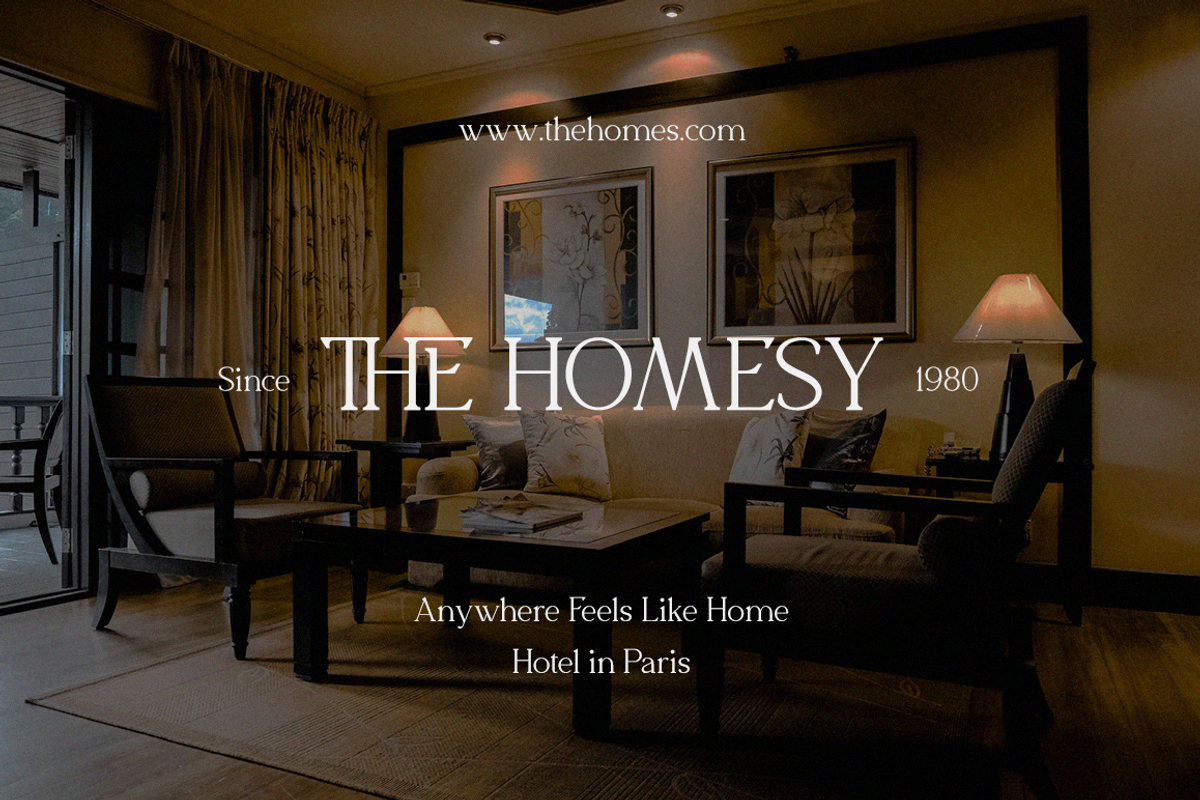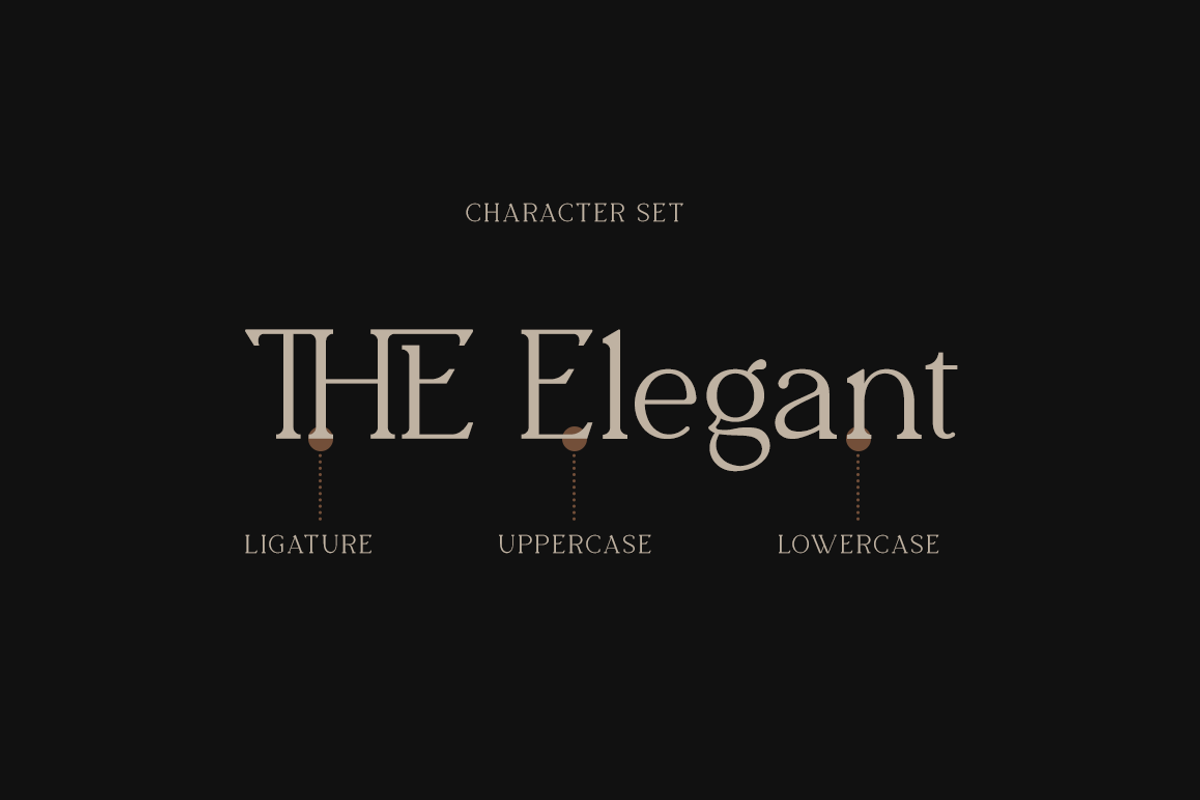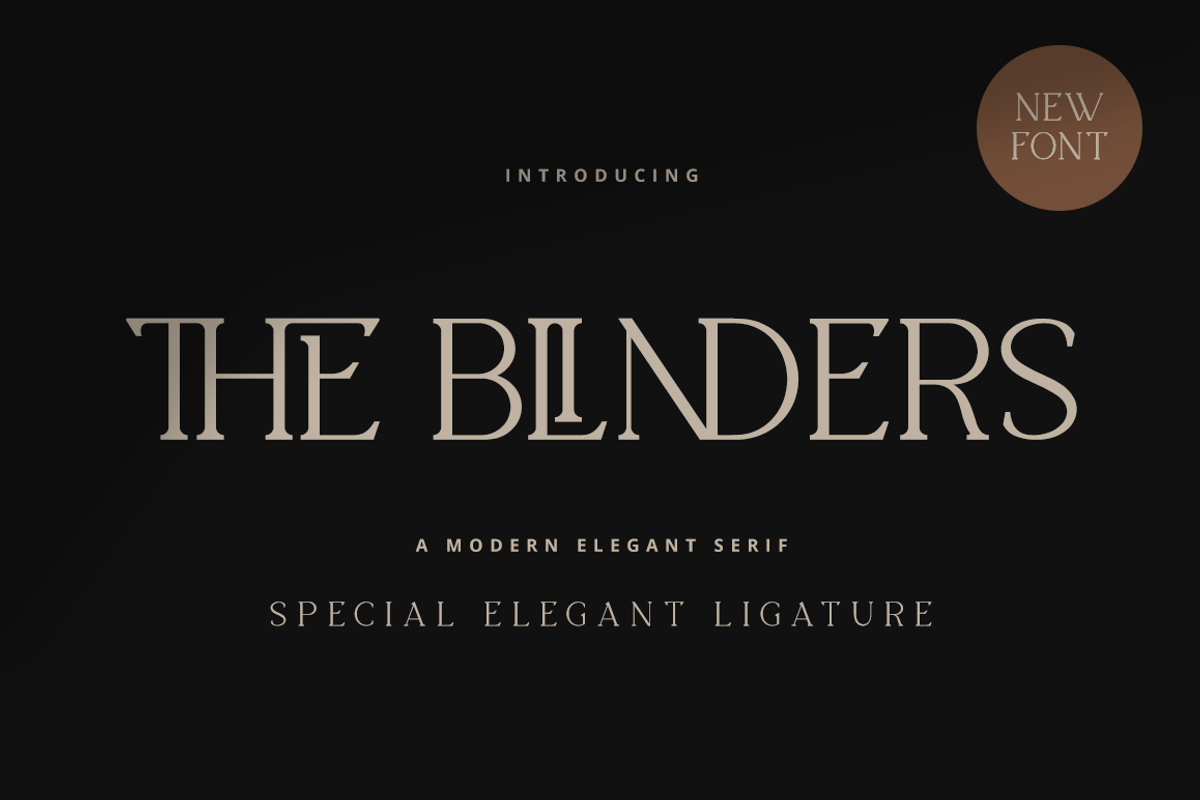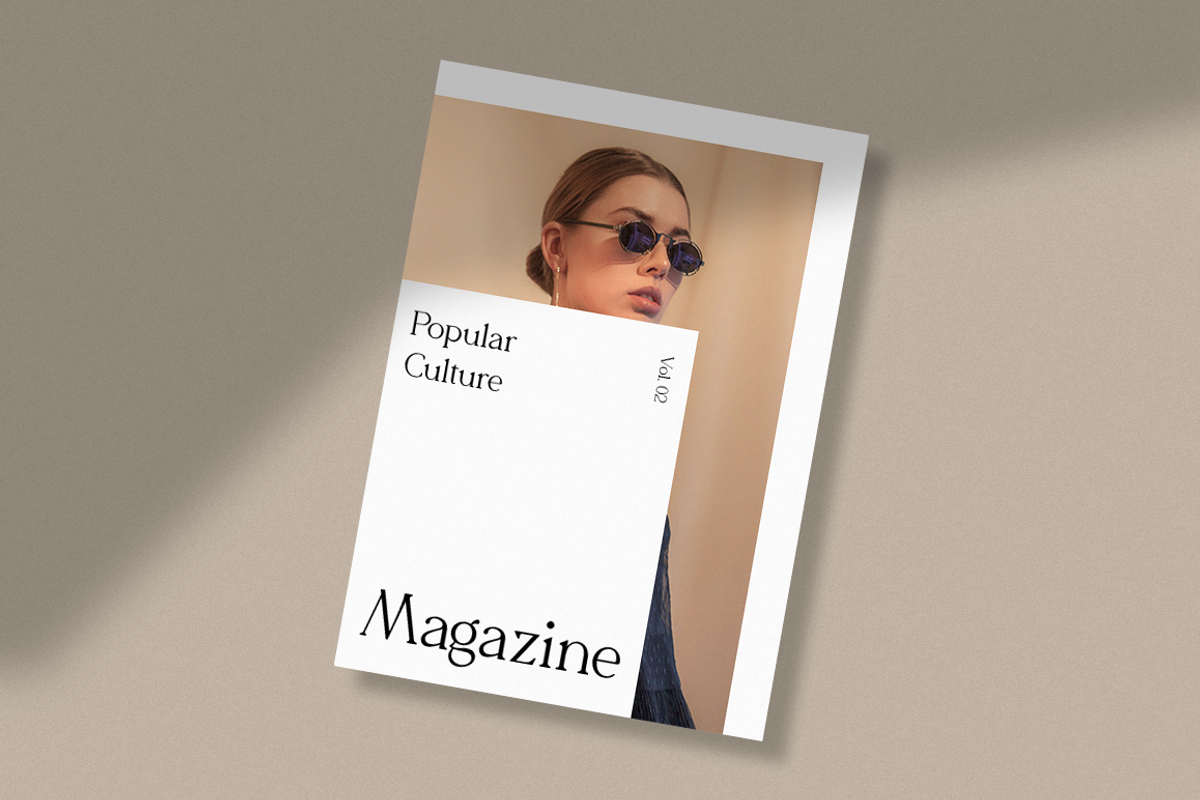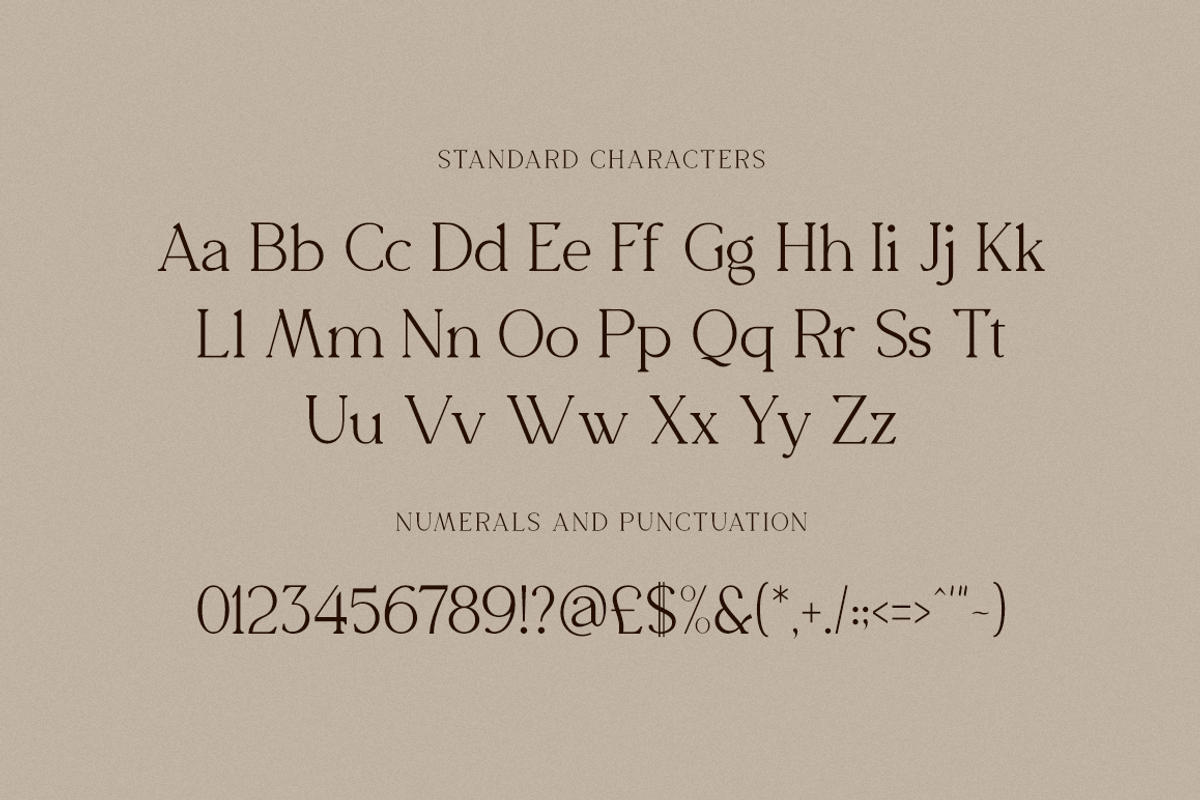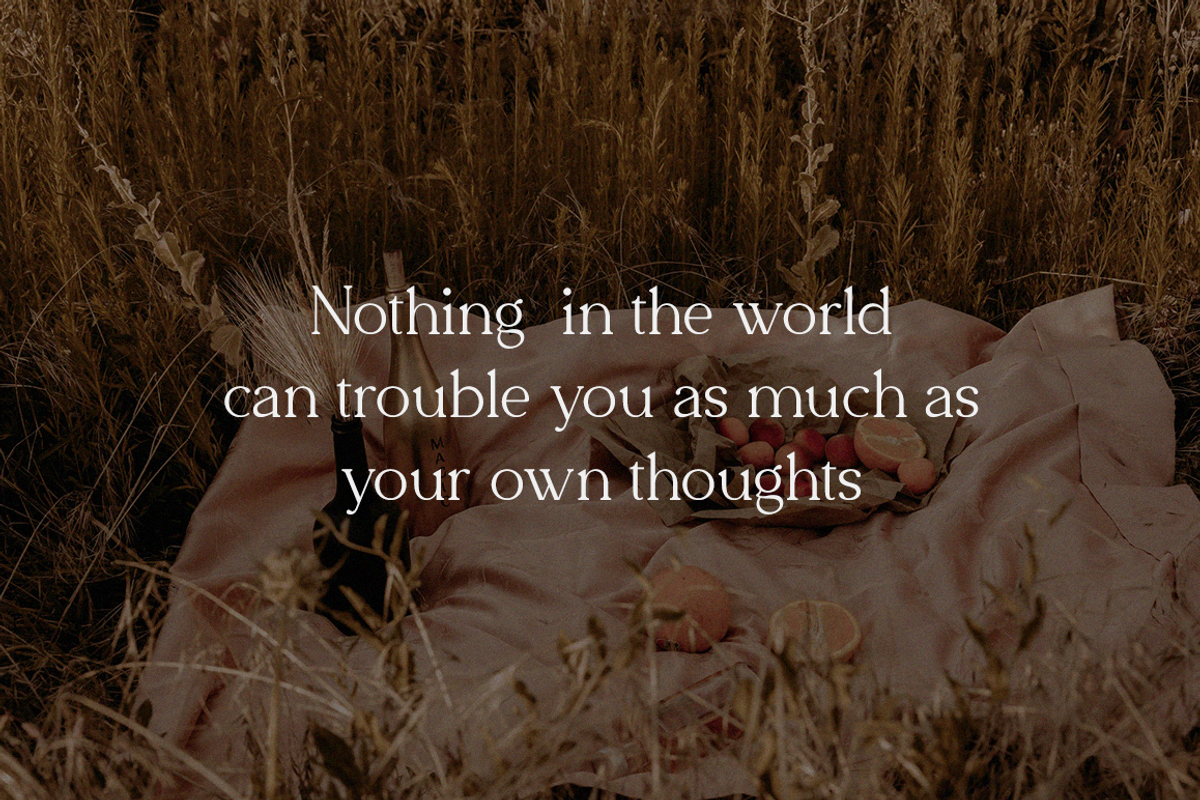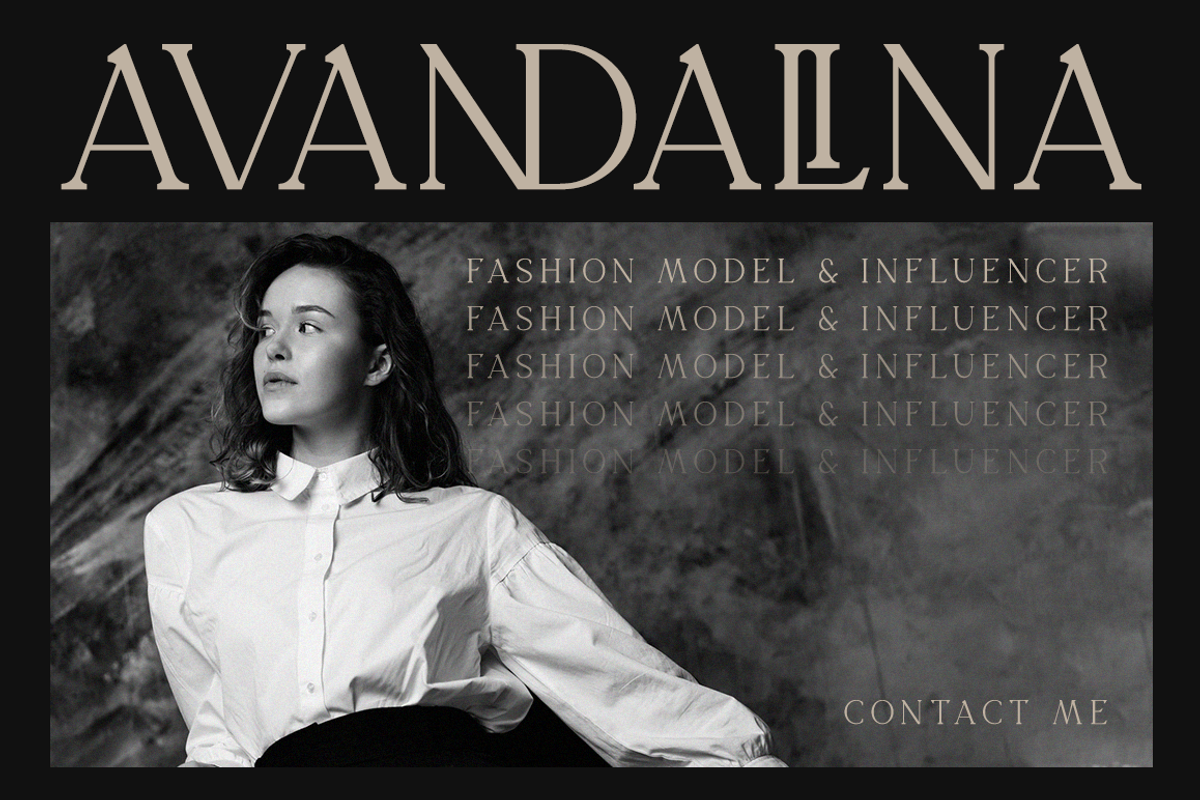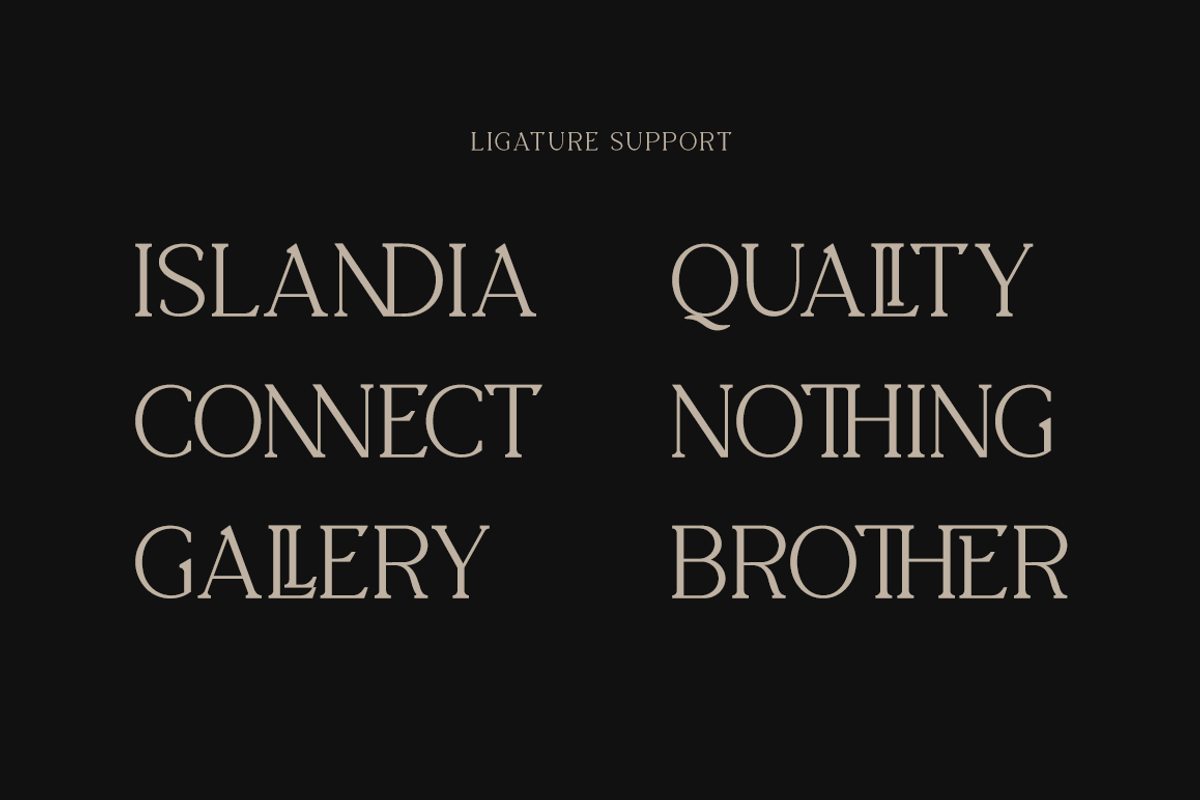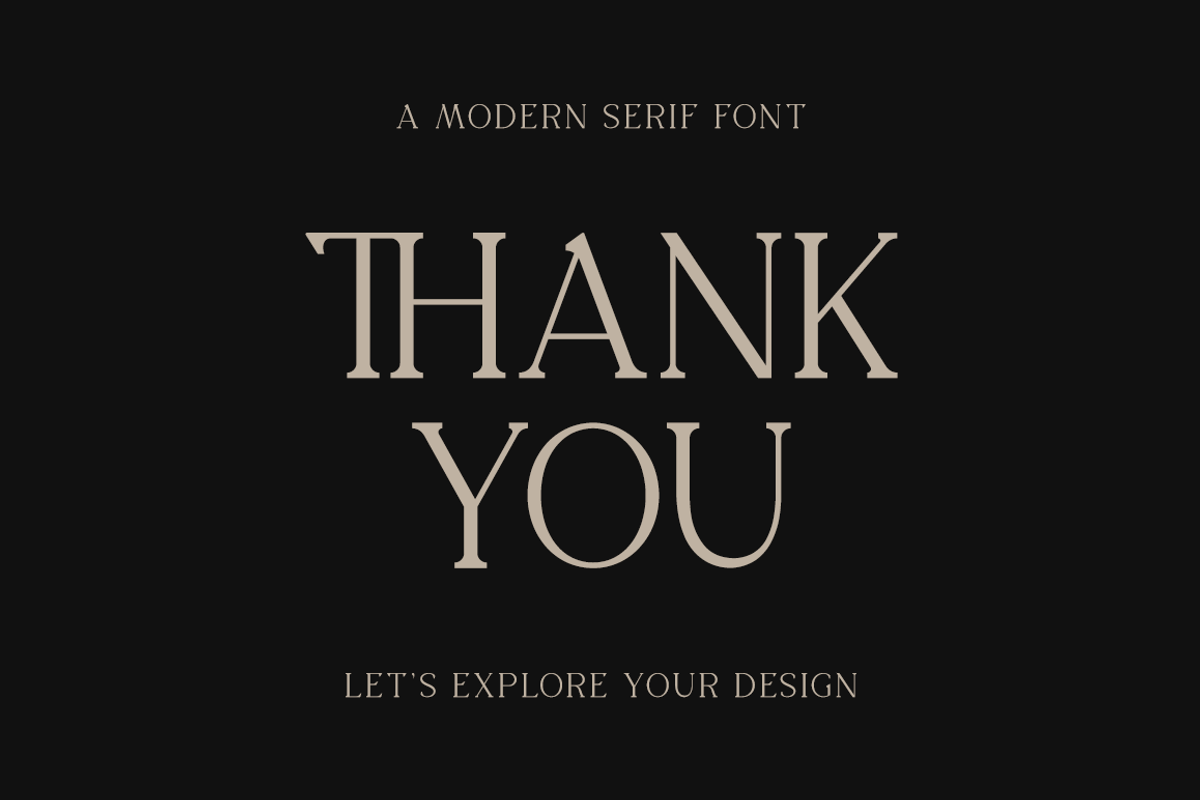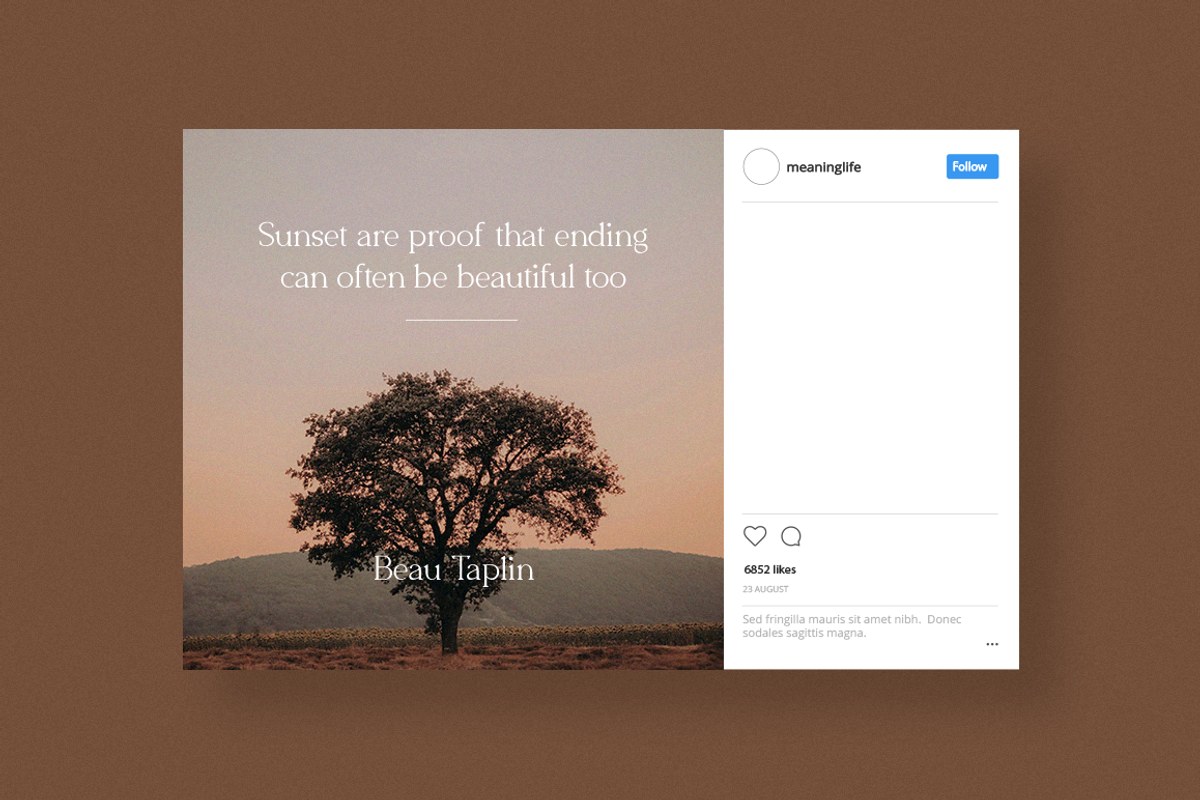
The Blinders - Elegant Serif Font
The Blinders is an elegant and thin lettered serif font. It maintains its classy calligraphic influences while feeling contemporary and fresh. Fall in love with it and bring your projects to the highest levels!